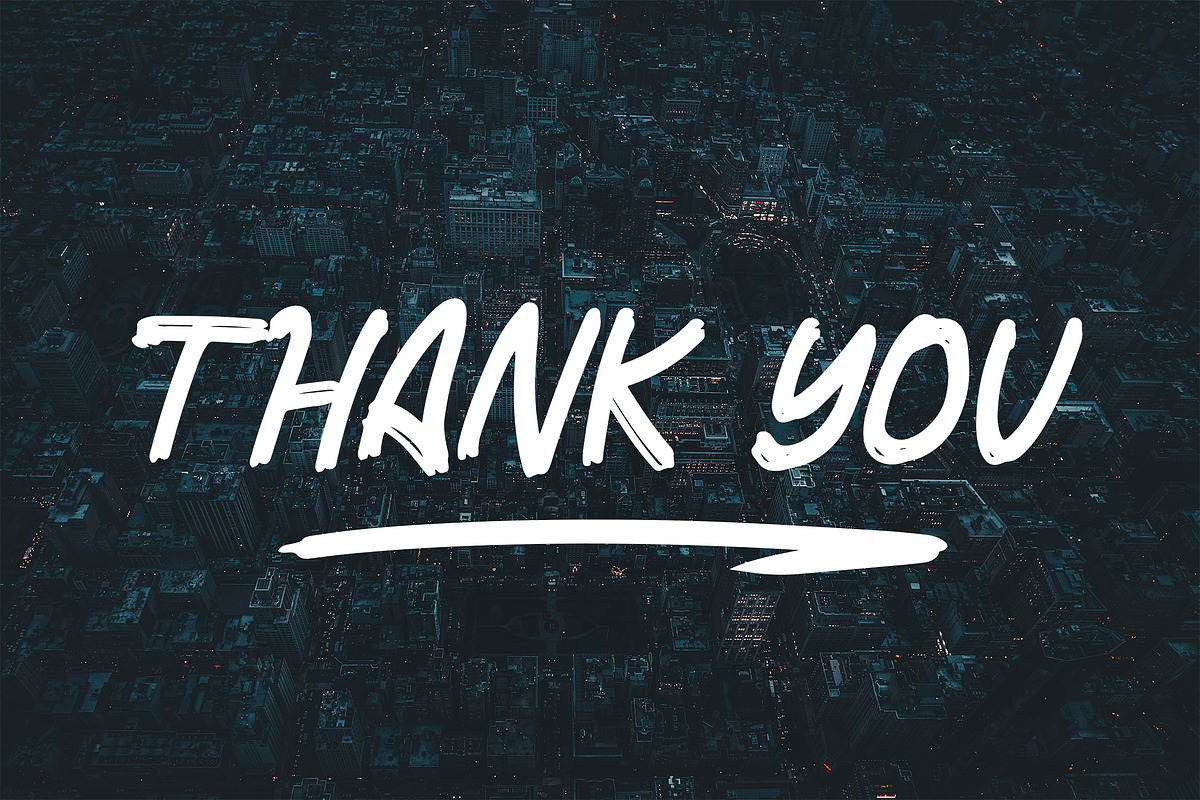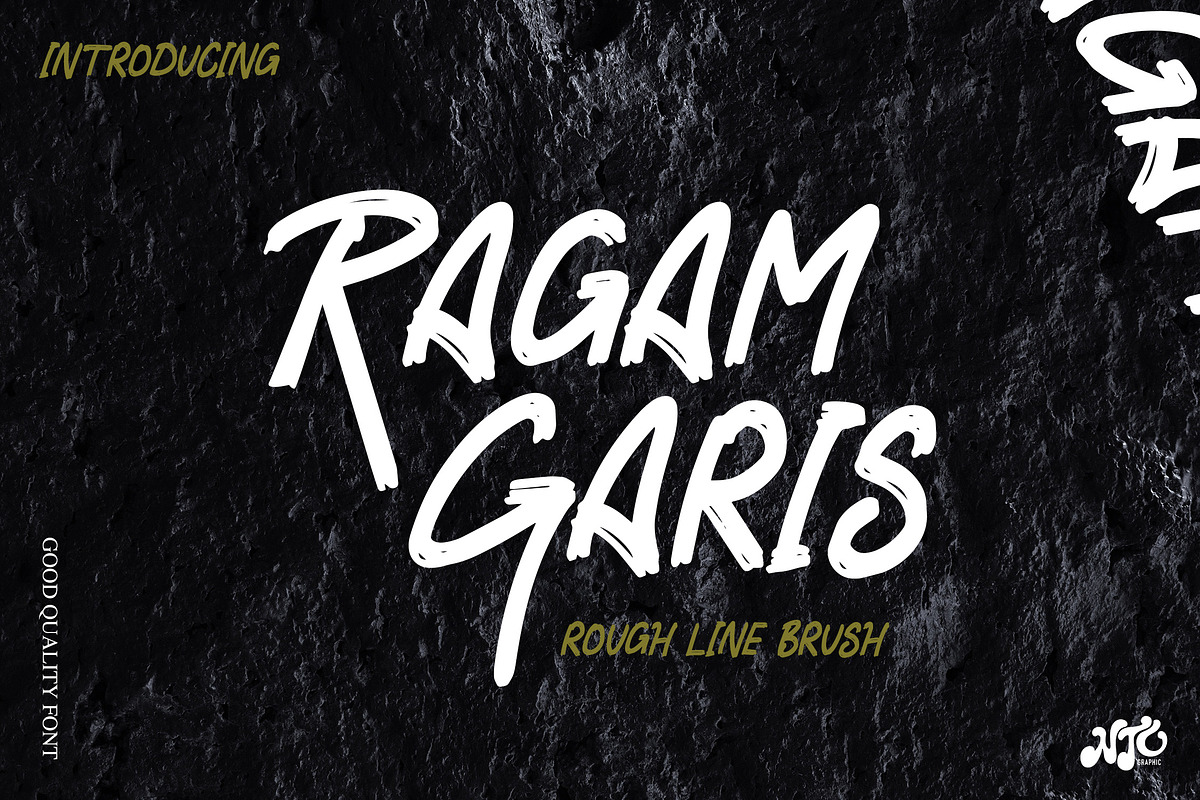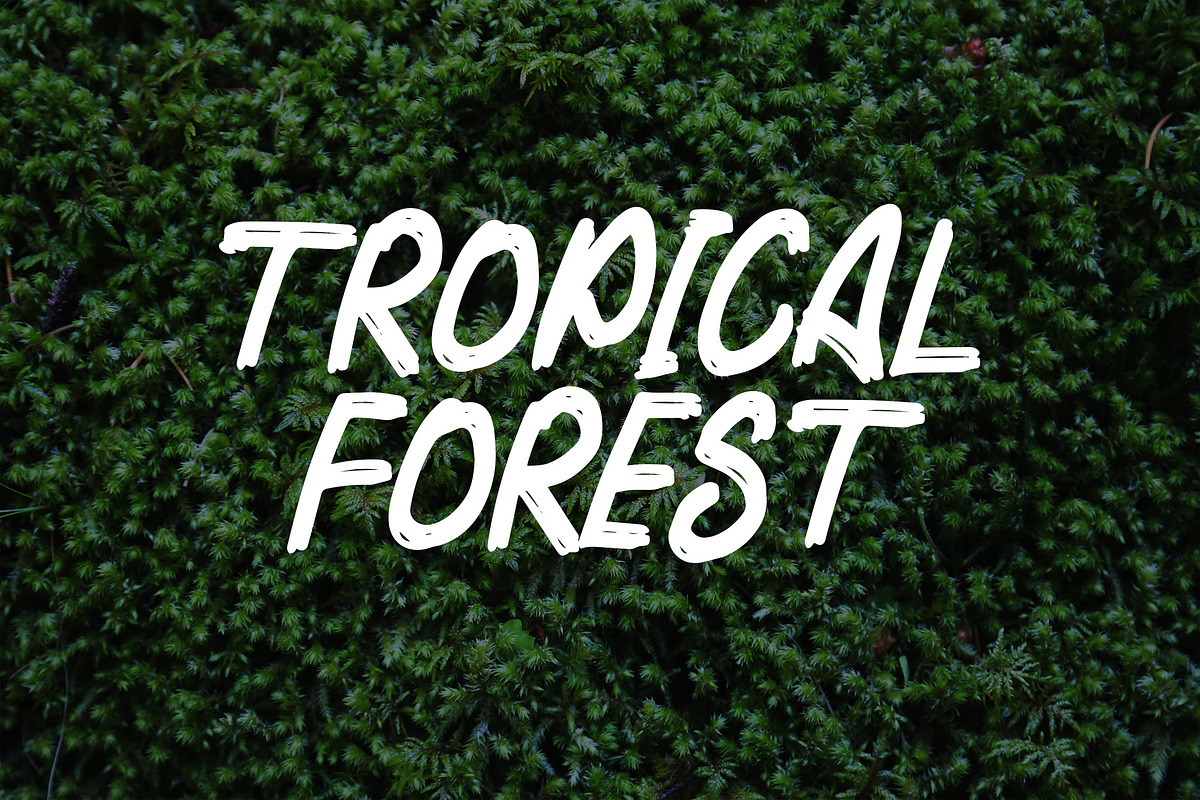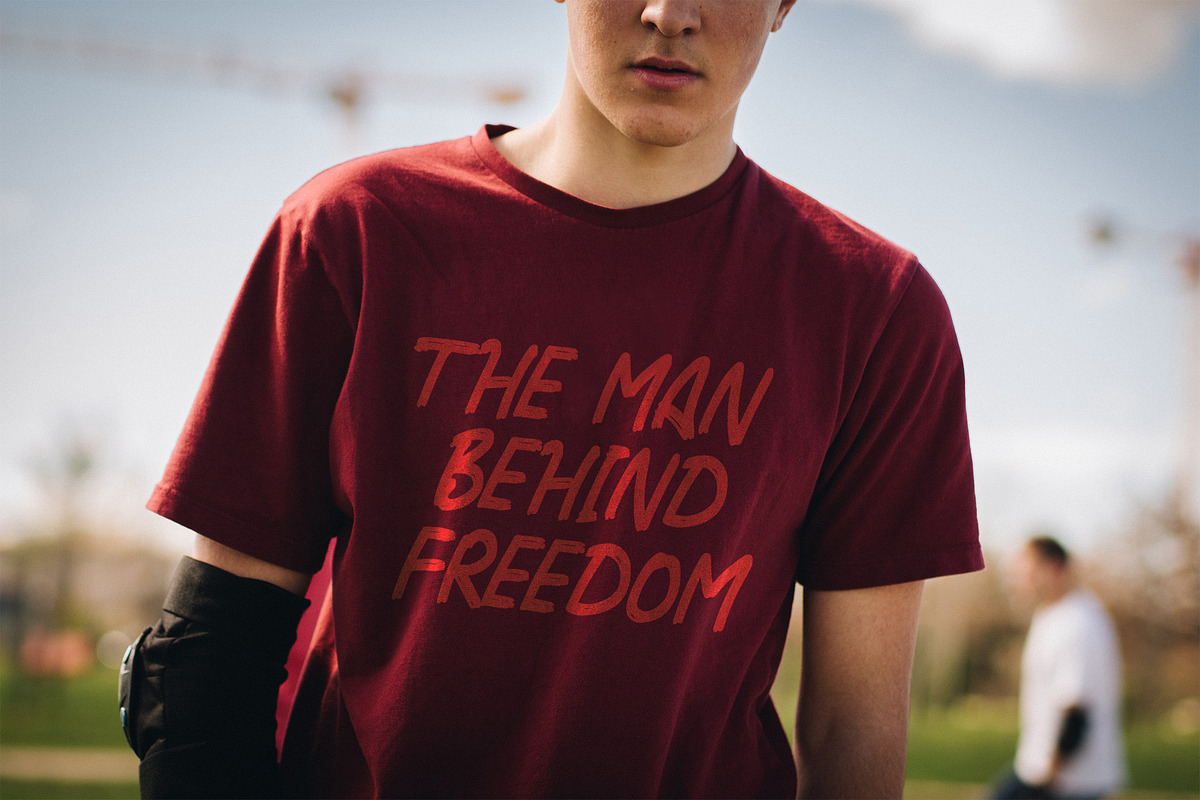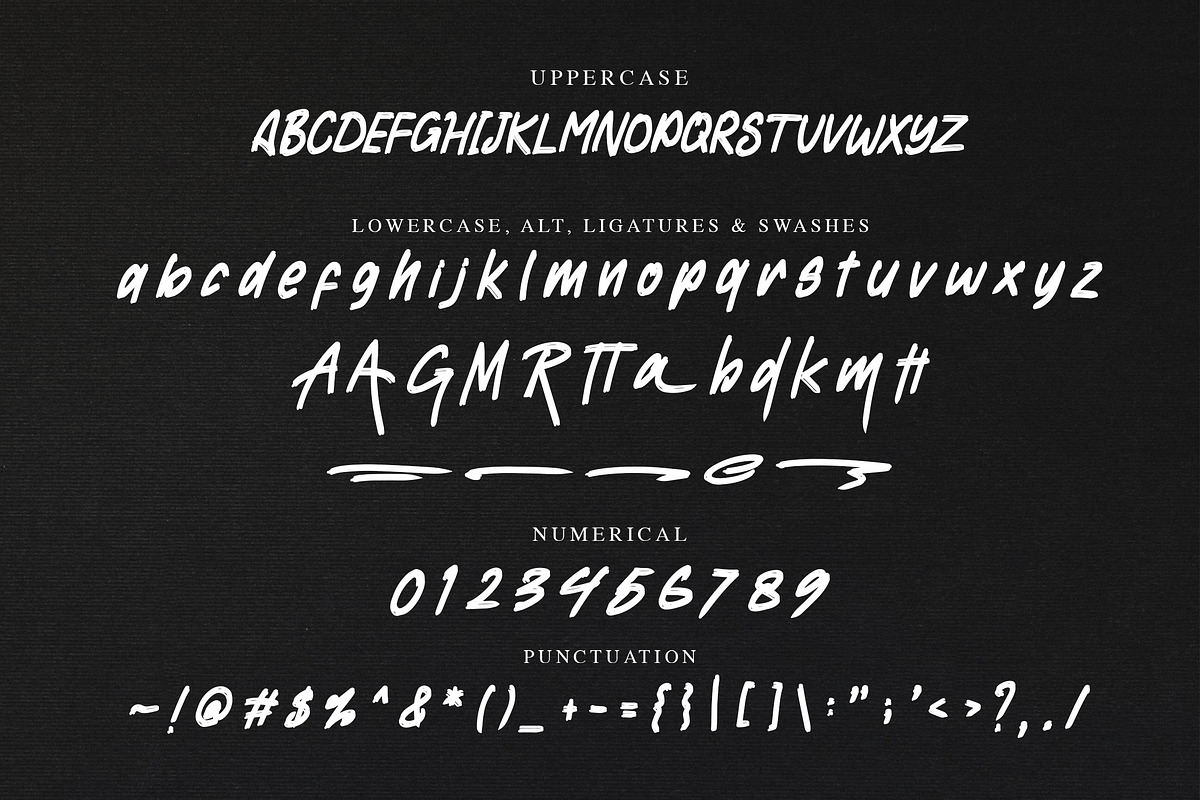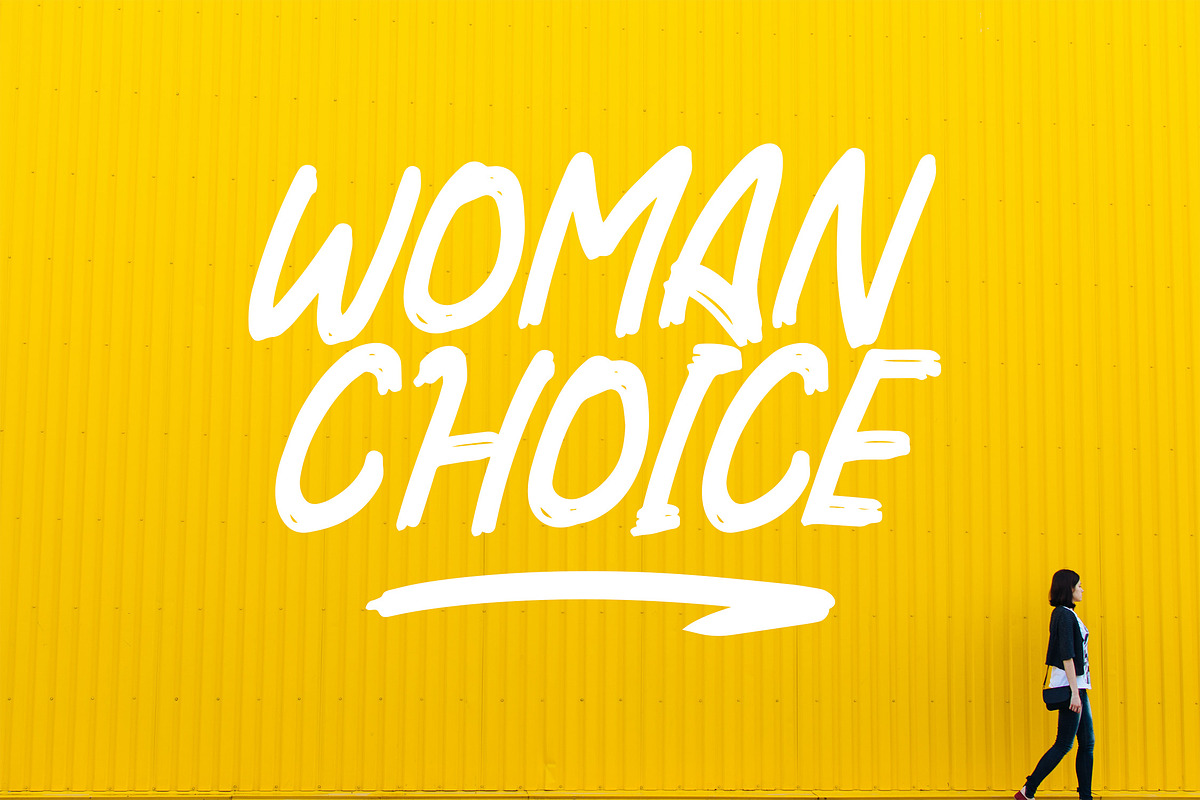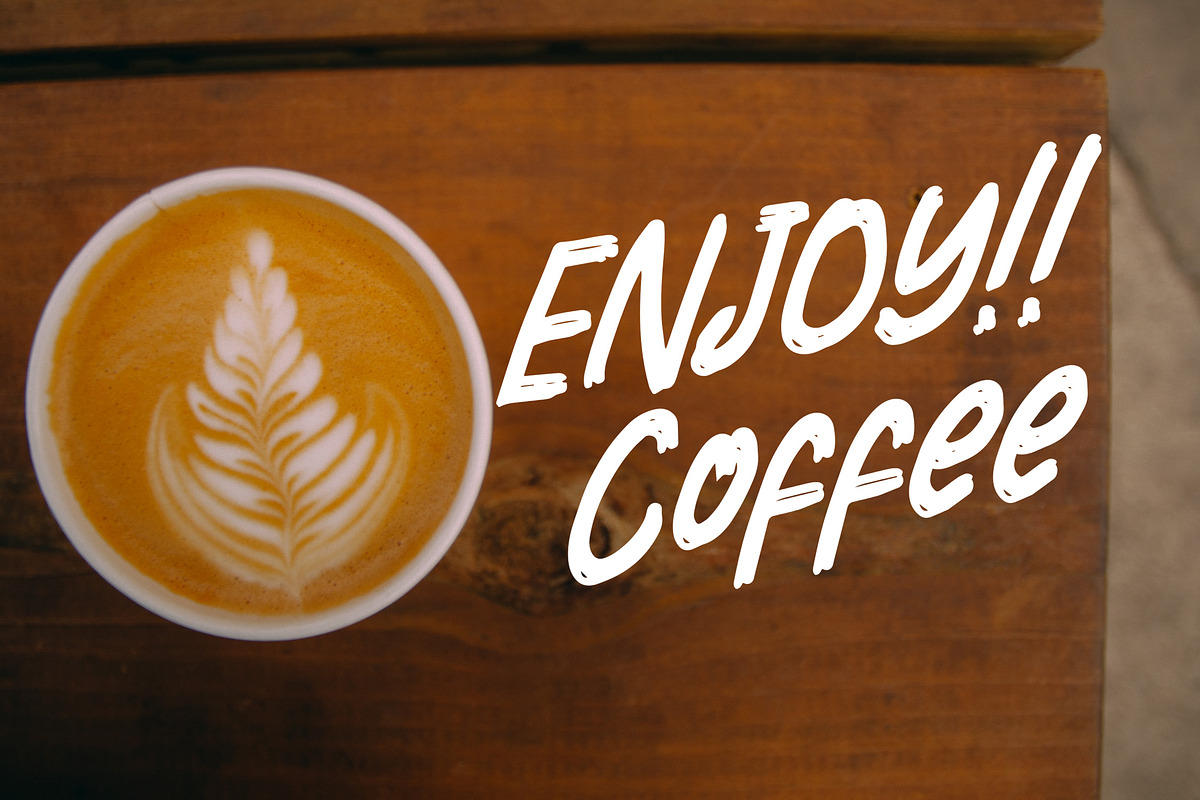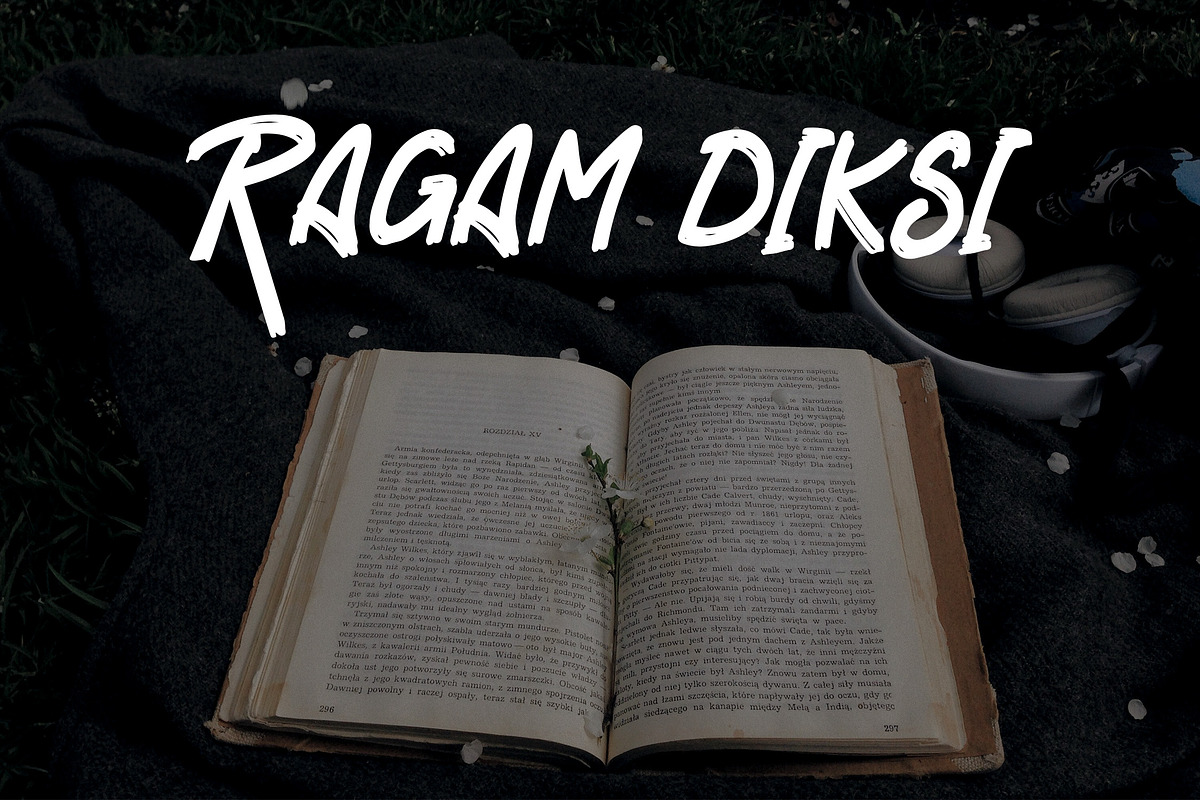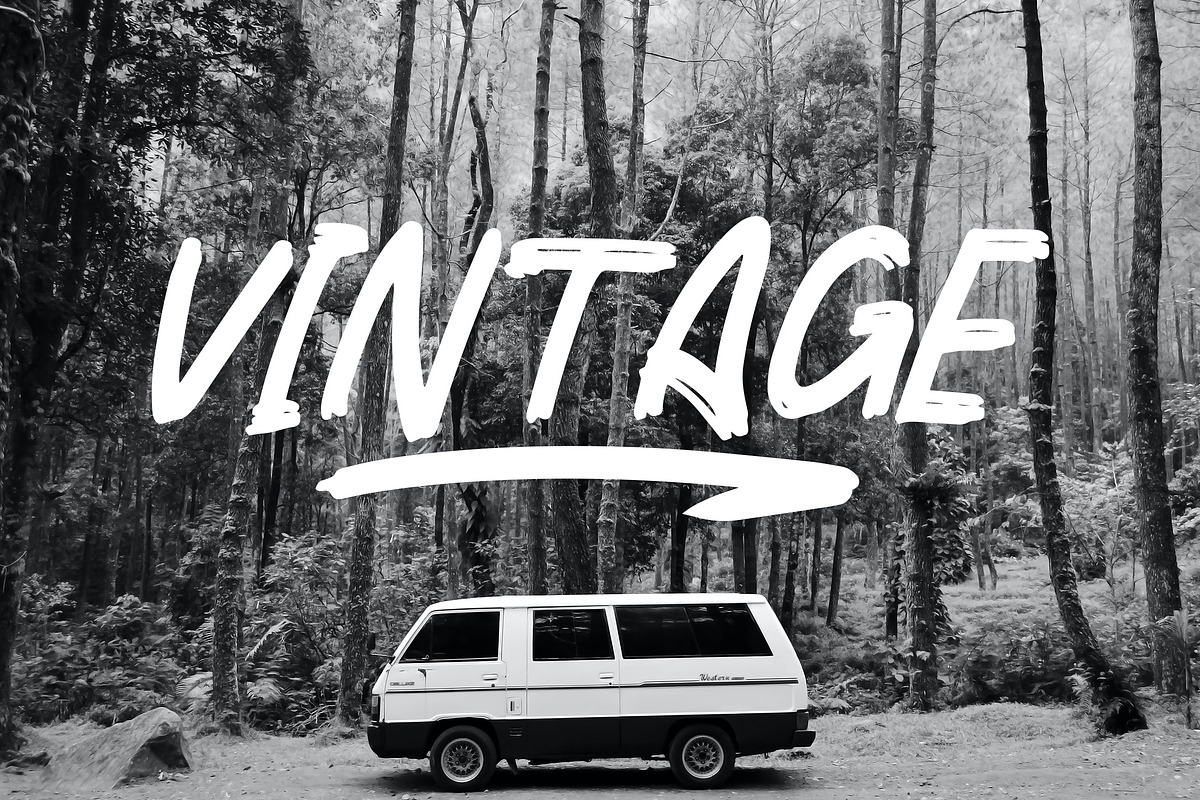
RAGAM GARIS - Brush Font
RAGAM GARIS is a beautiful display font with rough handbrush style. This font is made with a digital pen brush that has a rough character so that it produces a bold and beautiful font character. Can be applied to support the graphic appearance of the product to be more attractive and unique. This font is suitable for making previews and covers, logo designs, Street art design, shirt designs and other graphic needs.
RAGAM GARIS font with uppercase characters A-Z, lowercase characters a-z, punctuation, swashes, stylistic alternate and ligature characters that enhance this font shape.
-Ligature
-Stylistic Alternate
-Swashes